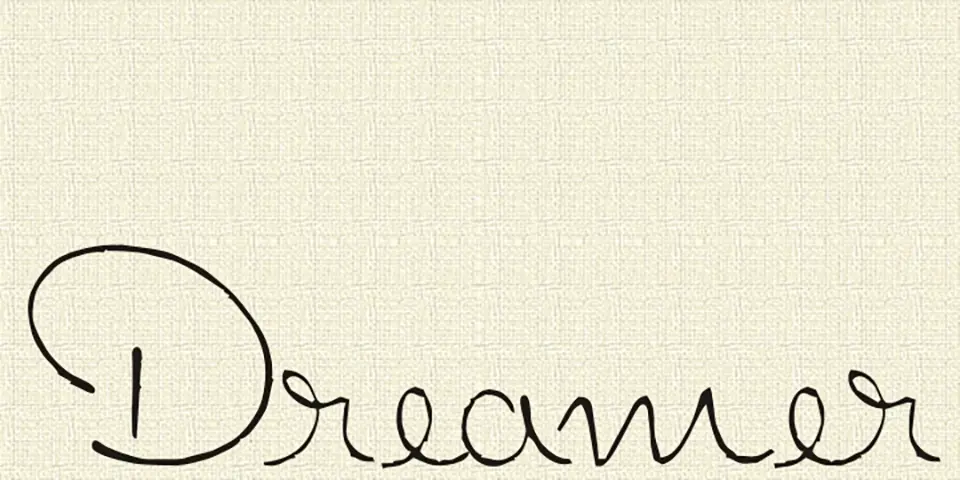
Dreamer Font
Dreamer Font is a sophisticated modern calligraphy script typeface featuring elegant flowing lines and delicate curls. This hand-lettered design embodies casual sophistication with a moving baseline that creates natural, organic movement throughout text. The font showcases subtle variations in pen angle and playful details that mimic authentic handwritten calligraphy, making each word appear uniquely crafted. Ideal for creative applications including logos, wedding invitations, headings, posters, and artistic designs, Dreamer Font combines versatility with refined elegance for projects demanding distinctive character and visual appeal.